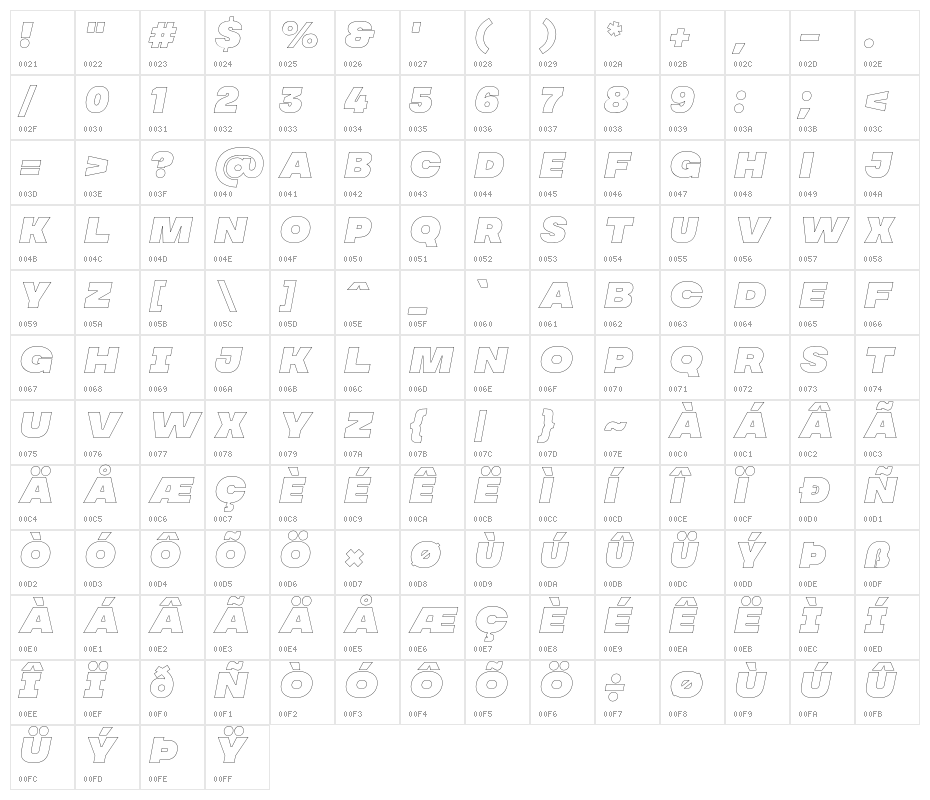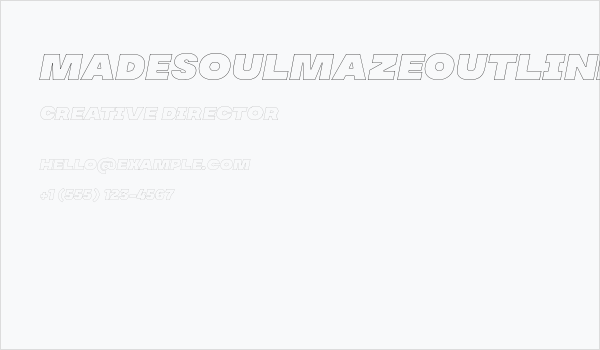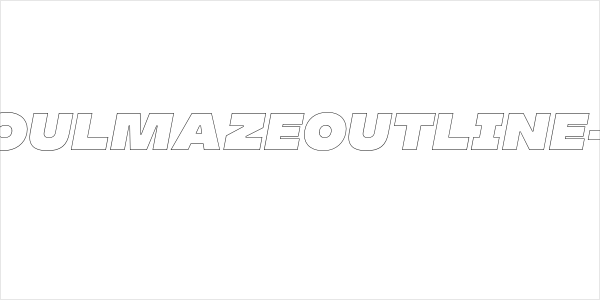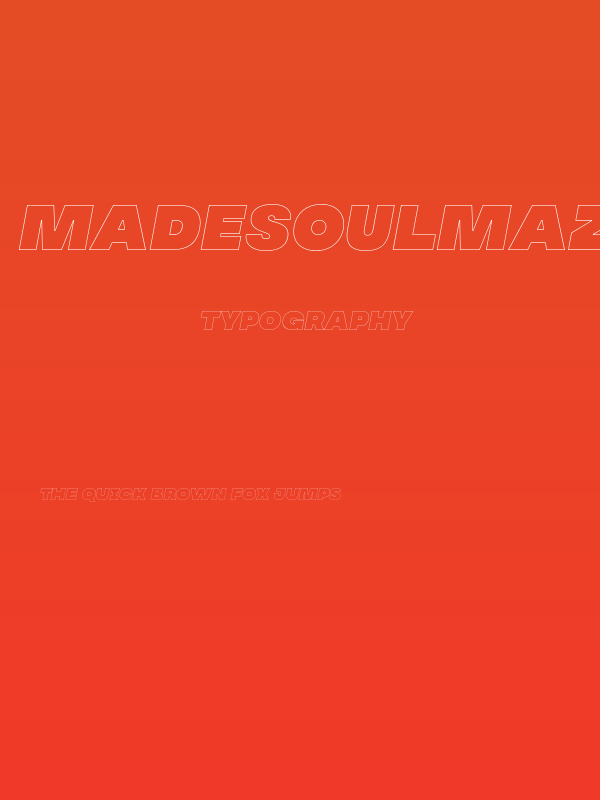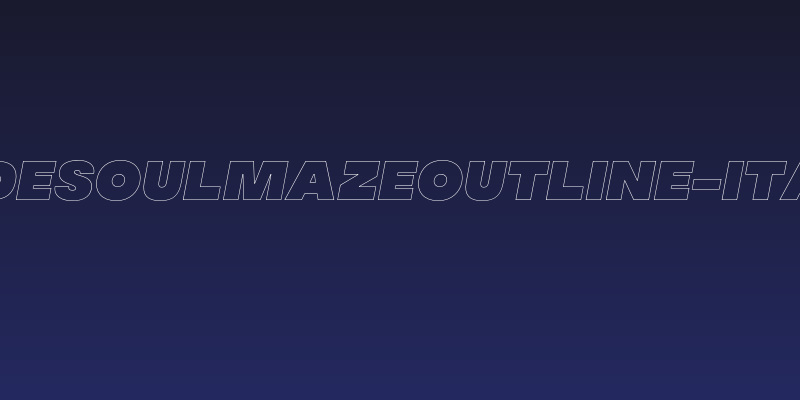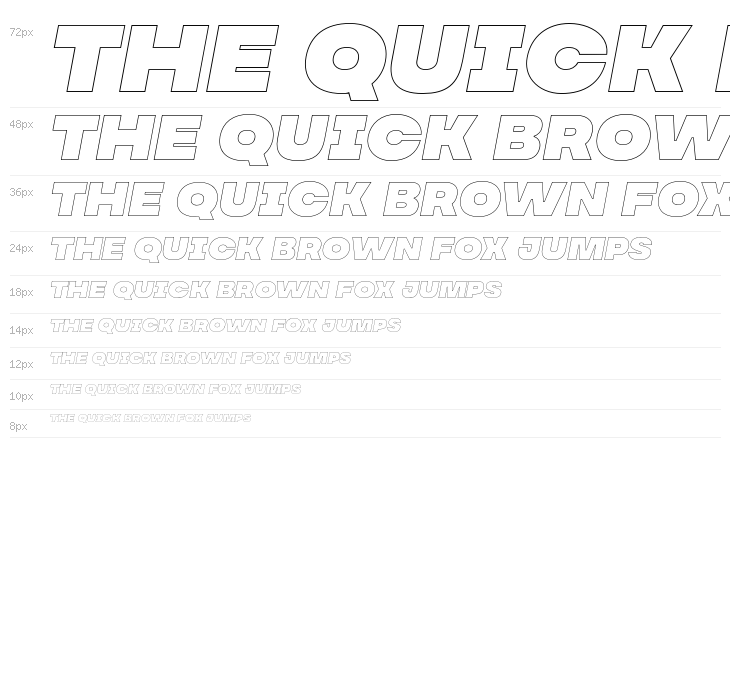
MADESoulmazeOutline-Italic Font
MADESoulmazeOutline-Italic Description
This font features a bold, outlined style with a distinct italic slant, giving it a dynamic and modern appearance. The uppercase and lowercase letters maintain a consistent thickness in their outlines, creating a uniform look across all characters. The numerals and special characters follow the same design principles, ensuring a cohesive visual identity. The font's geometric shapes and clean lines make it highly legible, even in smaller sizes. Its outlined nature adds a unique flair, making it stand out in various design contexts. The italic angle adds a sense of motion and energy, suitable for projects that require a contemporary and edgy feel.
| Proposed Projects | Ideal for branding, headlines, posters, and digital media where a bold and modern statement is needed. |